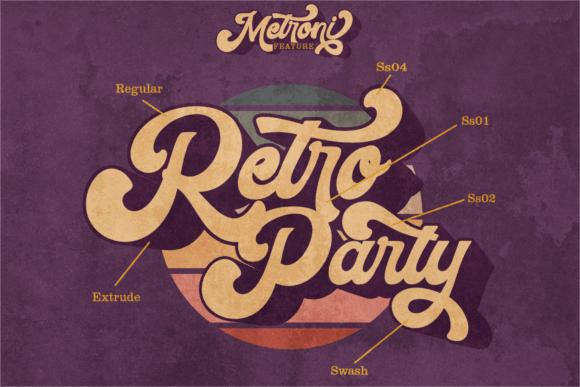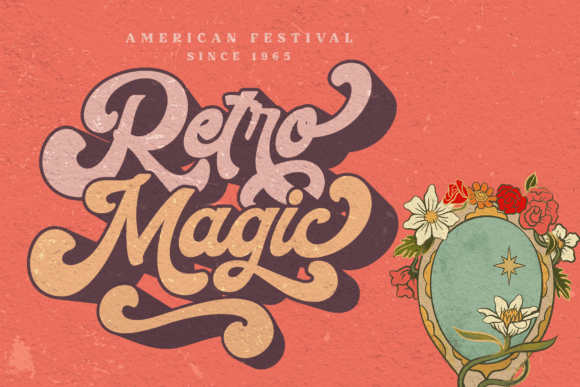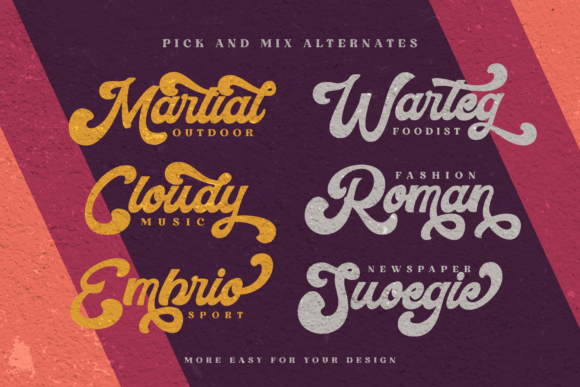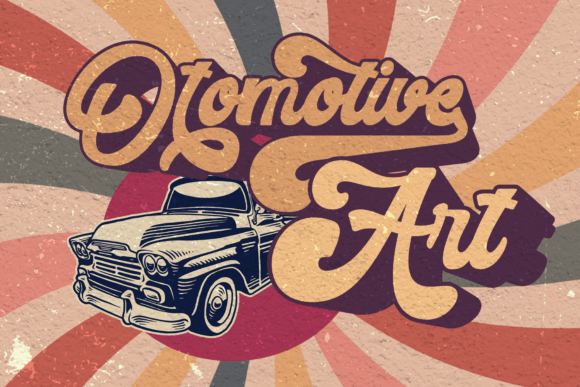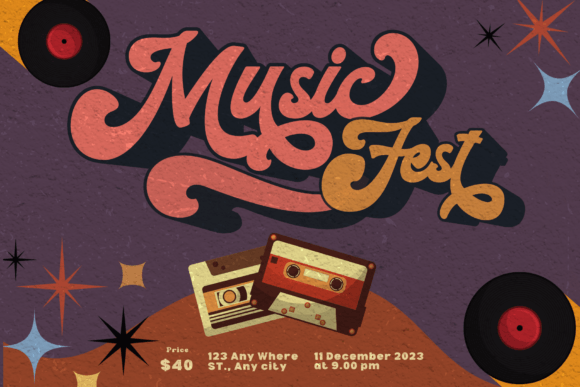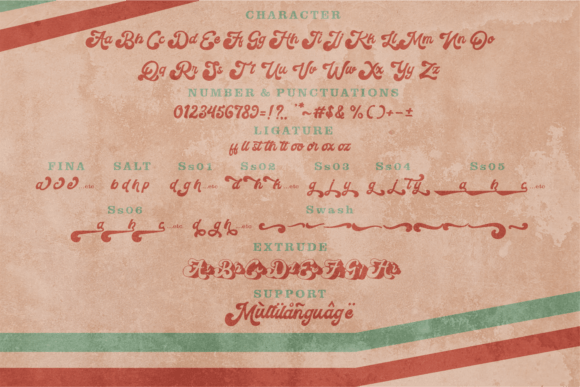
Introduction to Metroni Font Font
Fonts play a crucial role in design, and the Metroni Font font is a typeface that brings both character and versatility to any project. Whether you’re working on a branding project, a website, or a print design, the Metroni Font font offers a unique style that can elevate your work.
Metroni is a retro-inspired script display font that harkens back to the golden age of advertising and design.
Its flowing letterforms feature elegant curves and loops, giving it a sense of fluidity and motion The font is perfect for designs that require a vintage or retro aesthetic, such as branding, packaging, or editorial design.
Key Features of Metroni Font Font
Why Choose Metroni Font Font?
The Metroni Font font is more than just a typeface – it’s a design tool that helps you communicate your message with style and clarity. Its unique character set and versatile design make it suitable for a wide range of applications, from elegant invitations to bold headlines.
With its carefully crafted letterforms and balanced proportions, the Metroni Font font ensures readability and visual appeal across all mediums.
What makes Metroni Font font special?
The Metroni Font font stands out with its unique design, exceptional readability, and versatility across various design applications.